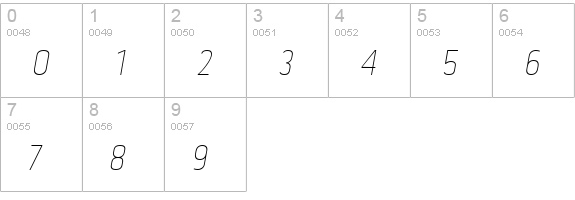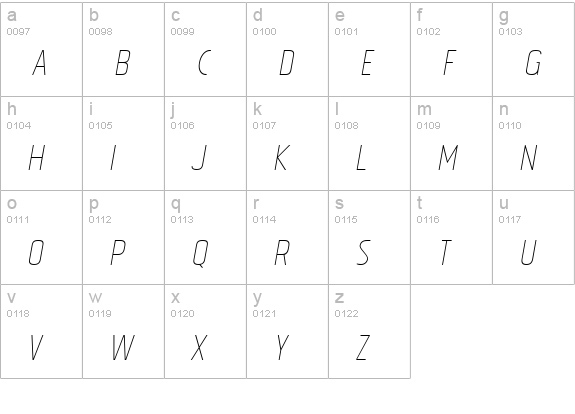
Tolyer Thin no.3 Oblique is a delicate, low-contrast, italic variant in the Tolyer typeface family \xE2\x80\x94 well suited to fashion editorial, minimal branding, and high-contrast display.
Tolyer Thin no.3 Oblique font exudes elegance and sophistication with its sleek and modern design. The subtle slant of the characters adds a touch of dynamism and style to any text, making it perfect for a wide range of creative projects. This font strikes the perfect balance between minimalism and personality, making it a versatile choice for both digital and print applications. Best of all, Tolyer Thin no.3 Oblique font is available for free download at FontsMarket.com. Whether you're designing a website, creating branding materials, or crafting eye-catching posters, this font is sure to elevate your work with its refined aesthetic. Don't miss out on the opportunity to enhance your designs with this stunning typeface that is both contemporary and timeless. Download Tolyer Thin no.3 Oblique font today and let your creativity shine.